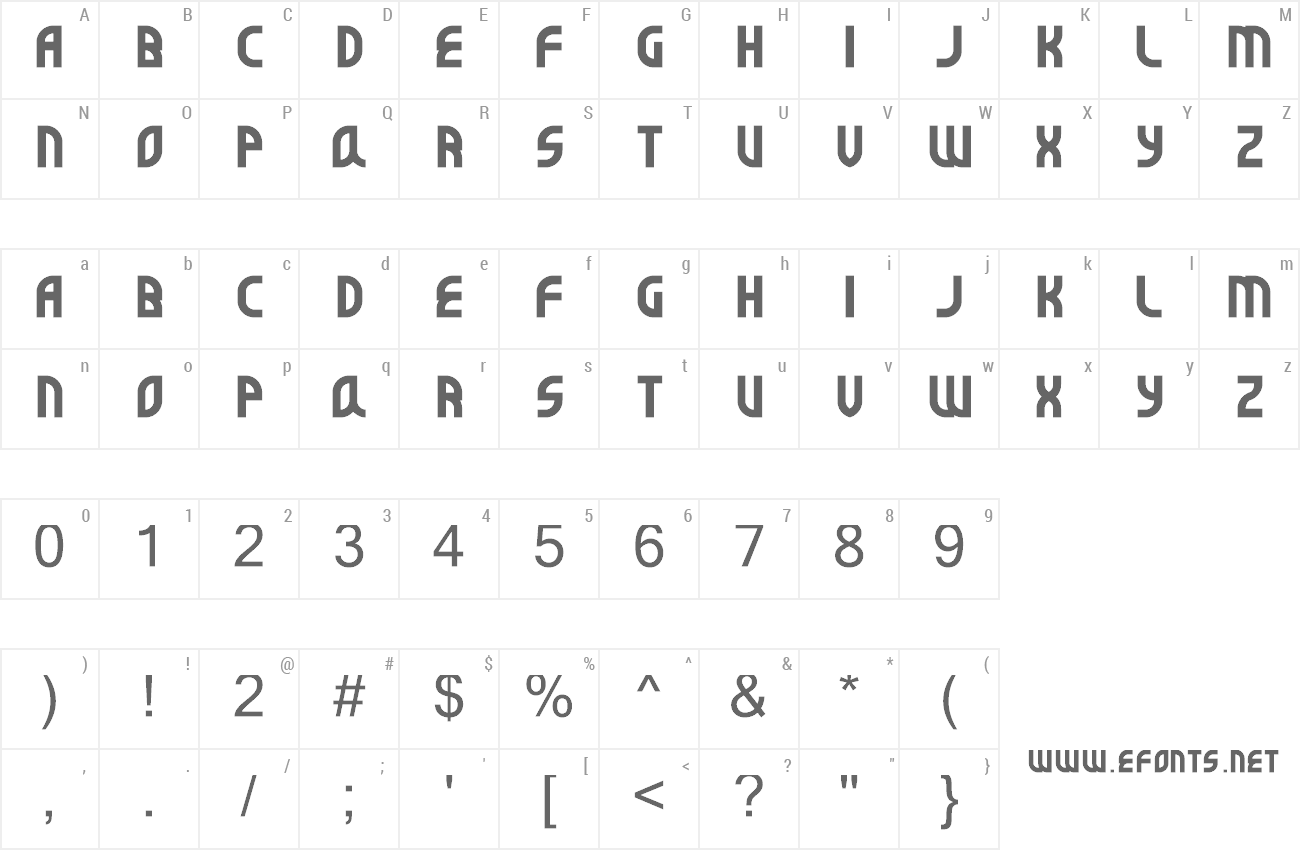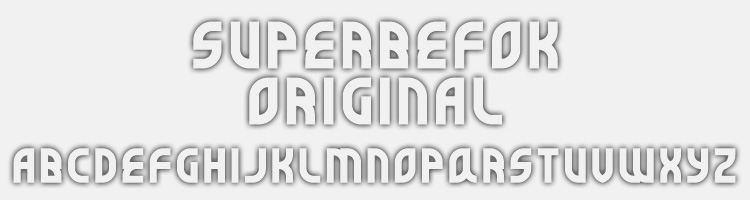
| Font name: | Super Befok |
| Author: | defaulterror |
| Note by defaulterror | |
| Super Befok was supposed to be a clothing label that I was going to do with Conform a couple years back. Even though we never got around to doing the shirts I still had the rough outline sketch of the logo I had made and decided to create the font. |